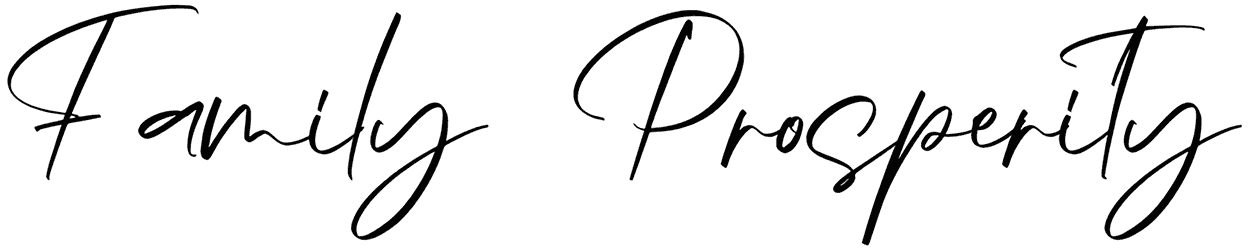
Family Prosperity Font
You can easily demonstrate your artistic talent to the audience by utilizing a magical script font, the same as the Family Prosperity that comes with a unique cursive style.
Aside from the lack of good readability, this handwritten font really deserves to be one of your main options in the realm of flyers, gift cards, greeting cards, applications, or diplomas. It can bring a feeling of delicacy, tenderness, momentum, or vitality to all of your content.